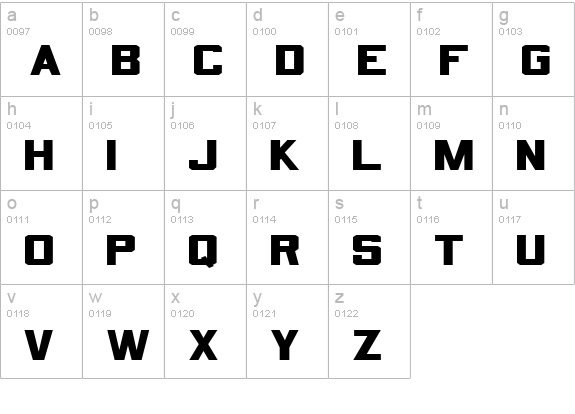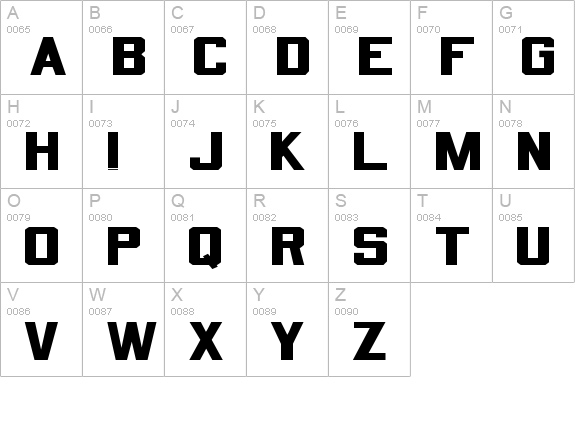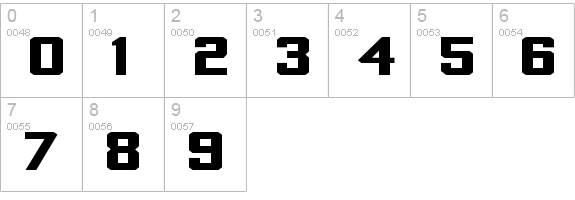
QuarterbackExtended Font Details
QuarterbackExtended font is a versatile and striking typeface that is sure to make a bold statement in any design project. With its clean lines and modern aesthetic, this font is perfect for creating eye-catching headlines, logos, and signage. The QuarterbackExtended font features extended letterforms that add a unique and dynamic touch to your typography. Its strong and sturdy appearance exudes confidence and power, making it an ideal choice for sports-related designs or any project that requires a strong visual impact. What sets QuarterbackExtended font apart is that it is not only visually appealing, but it is also freely available to download at FontsMarket.com. This means that you can use this incredible font in your designs without any restrictions or limitations. Whether you are a professional designer or a hobbyist, you can easily access and use this font to enhance your creative projects. With its wide range of characters and extensive language support, QuarterbackExtended font allows you to create designs that cater to a global audience. Its legibility and readability ensure that your message is conveyed clearly and effectively, regardless of the language or medium. Whether you are designing a sports poster, a magazine layout, or a website, QuarterbackExtended font is the perfect choice to add a touch of style and professionalism. Its versatility makes it suitable for a variety of design applications, making it a must-have font for any designer's toolkit. In conclusion, QuarterbackExtended font is a visually stunning and freely available typeface that will elevate your designs to new heights. Download it now at FontsMarket.com and unleash your creativity with this exceptional font.